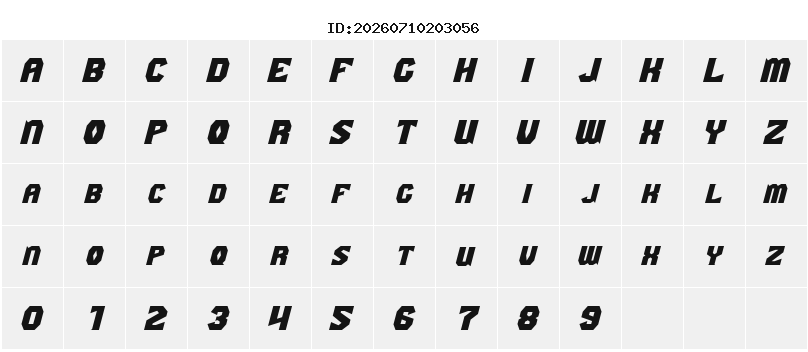
• Font Name: Gaiking Extended
• Designer: Neale Davidson
• Manufacturer: Pixel Sagas
About Gaiking Extended.otf
Gaiking Extended.otf is a modern, elegant sans-serif font designed for ultimate readability and visual harmony. Perfect for branding, headlines, web design, and print materials.